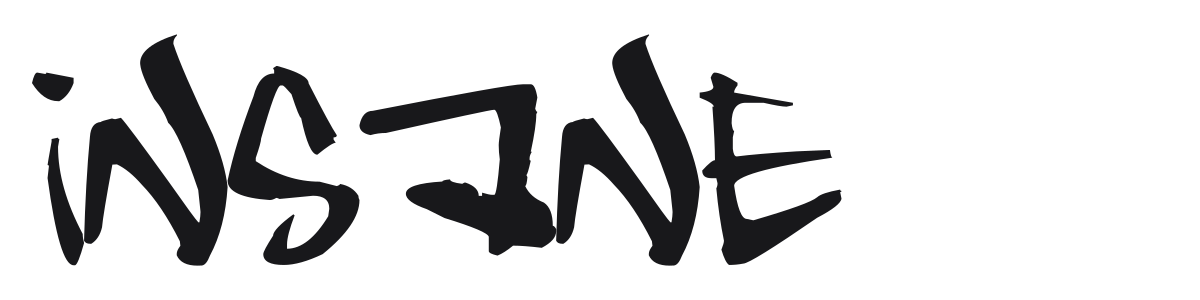
Insane
Insane is a bold graffiti script by Johan Waldenström that channels raw street-tag energy with heavy, jagged strokes and deliberately chaotic construction. Characters shift and lurch across the baseline with the kind of irregular ink texture you'd expect from a thick marker on a wall. It reads loud and unapologetic at headline sizes.